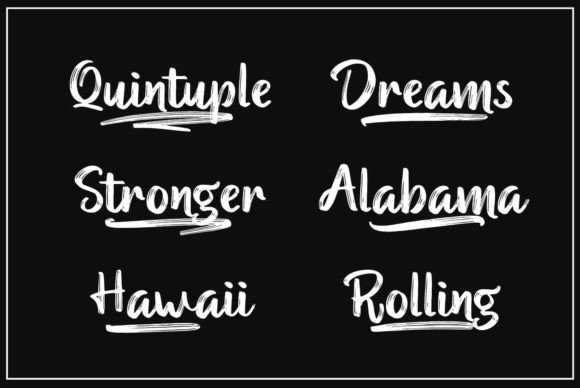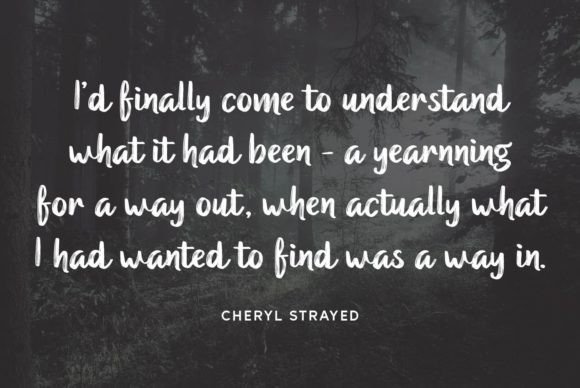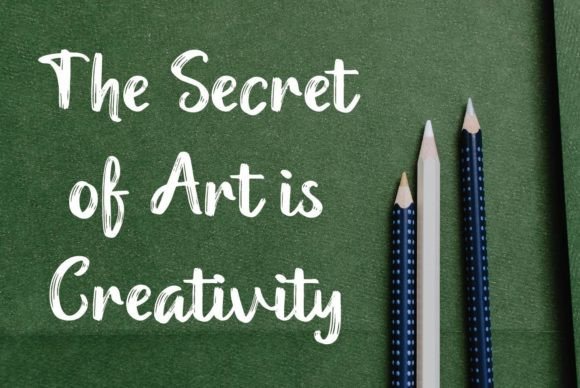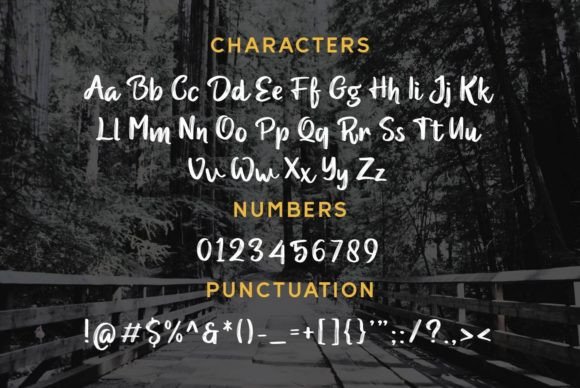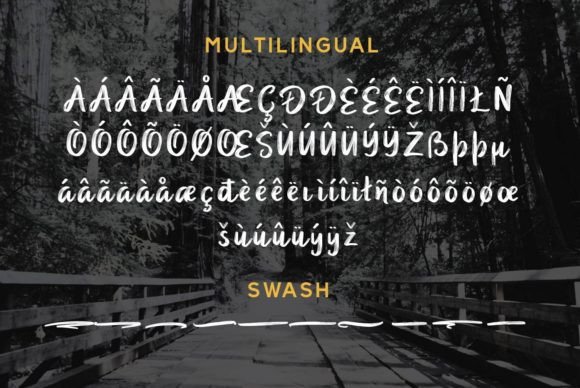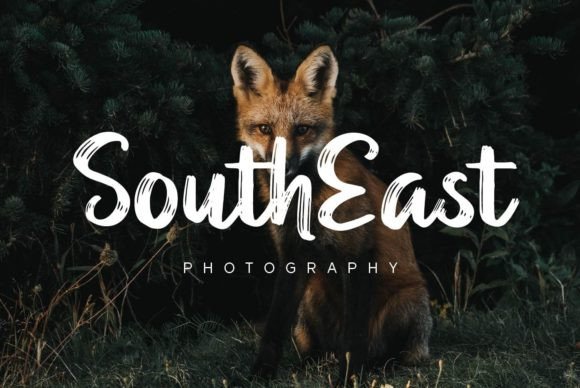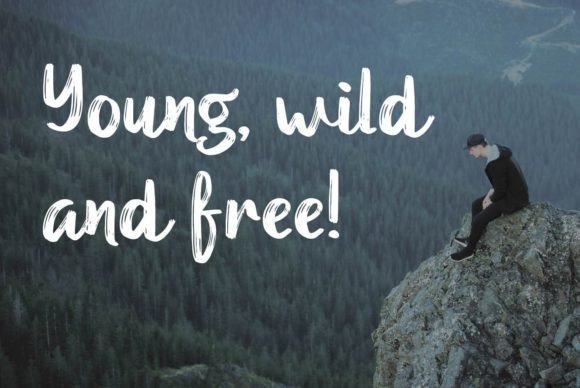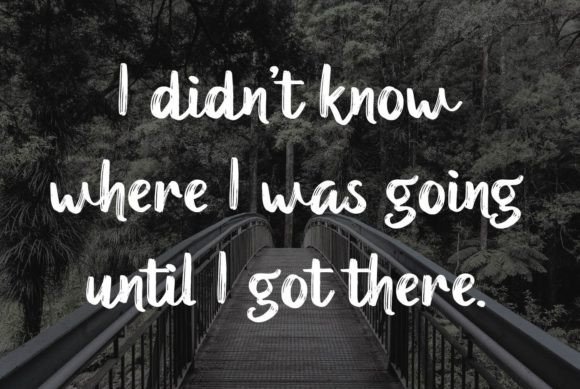
Quick Roll Font
About Quick Roll Font
Aqua Lagoon is a meticulously crafted and well-rounded handwritten font, tailored to meet the needs of crafty projects that demand authentic typography. With its delicate strokes and balanced design, Aqua Lagoon is an ideal choice for enhancing the visual appeal of various creative endeavors. Whether you’re working on wedding invitations, birthday cards, personal branding, elegant logos, or any other project, Aqua Lagoon ensures that your designs stand out with a unique and authentic charm.
The delicacy of Aqua Lagoon’s strokes contributes to its refined and sophisticated appearance, making it well-suited for projects that require a touch of elegance. The well-rounded design ensures that Aqua Lagoon seamlessly adapts to diverse design needs, providing a versatile solution for creative expressions.
In the realm of wedding invitations, Aqua Lagoon becomes a captivating choice that adds a romantic and charming aesthetic. The handwritten authenticity of the font transforms invitations into timeless keepsakes, reflecting the individuality of the special occasion with grace.
For birthday cards, Aqua Lagoon imparts a personal and crafted feel, elevating simple cards into heartfelt expressions. The font’s versatility allows for creative freedom, ensuring that each birthday message is conveyed with a touch of elegance and warmth.
In personal branding, Aqua Lagoon serves as a distinctive element that sets your identity apart with authenticity. The handwritten charm adds a layer of personality to your brand, making it more memorable and relatable. Whether used in logos or other branding materials, Aqua Lagoon ensures that your visual identity resonates with a unique and sophisticated appeal.
Aqua Lagoon’s adaptability extends to elegant logos and various crafty projects, where its well-rounded design shines. Its versatile nature allows it to seamlessly integrate into different design aesthetics, ensuring that your creations stand out with a touch of sophistication and authenticity.
In essence, Aqua Lagoon is not just a font; it’s a design companion that enhances the authenticity and elegance of your crafty projects. Its delicate and well-rounded nature makes it suitable for a range of applications, turning each project into a standout creation that captivates your audience. Let Aqua Lagoon be the delicate yet powerful handwritten font that elevates your designs, ensuring that they stand out with a timeless and authentic charm.